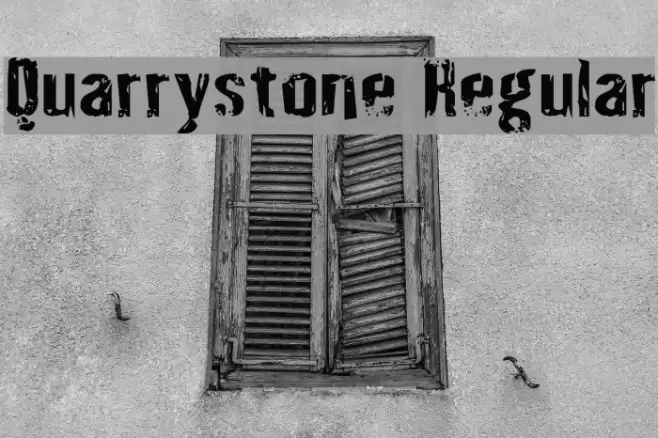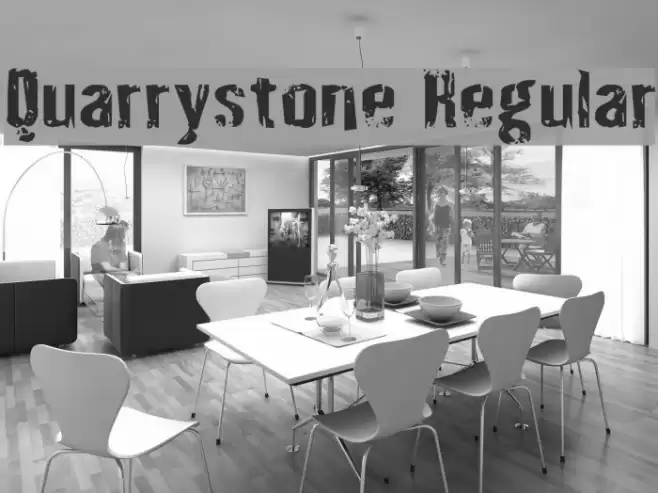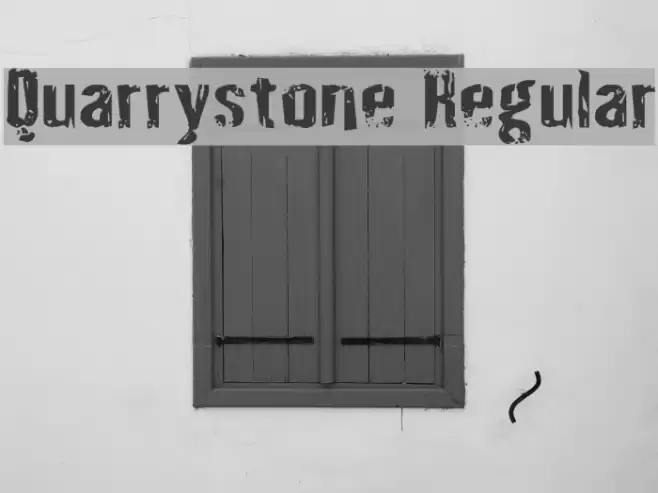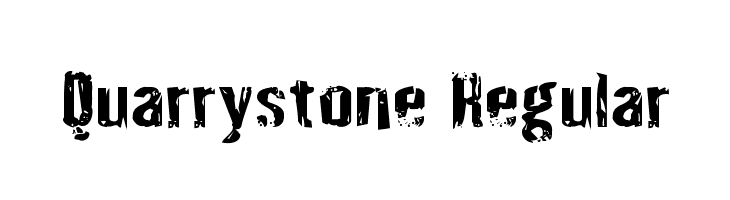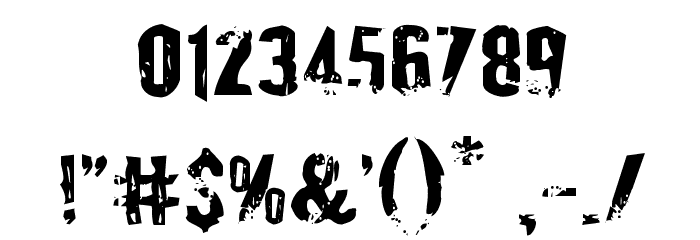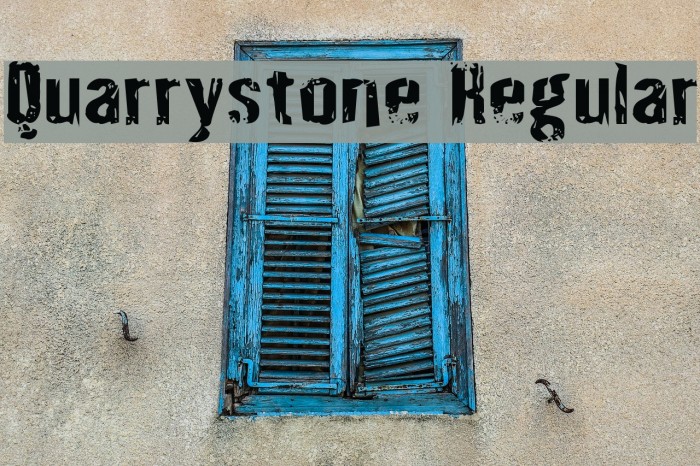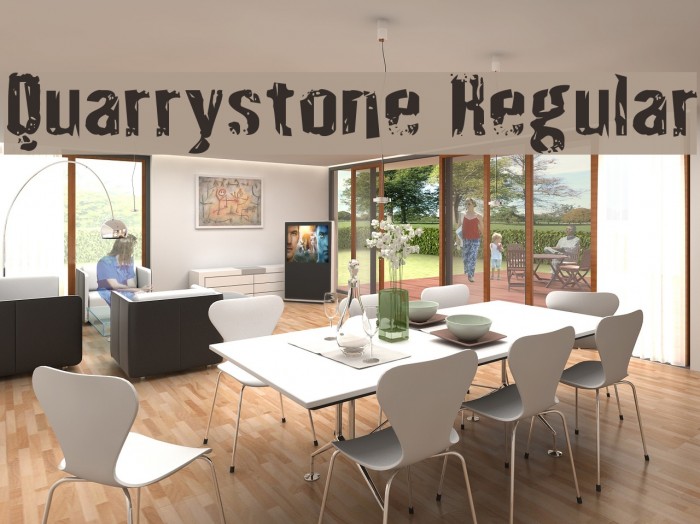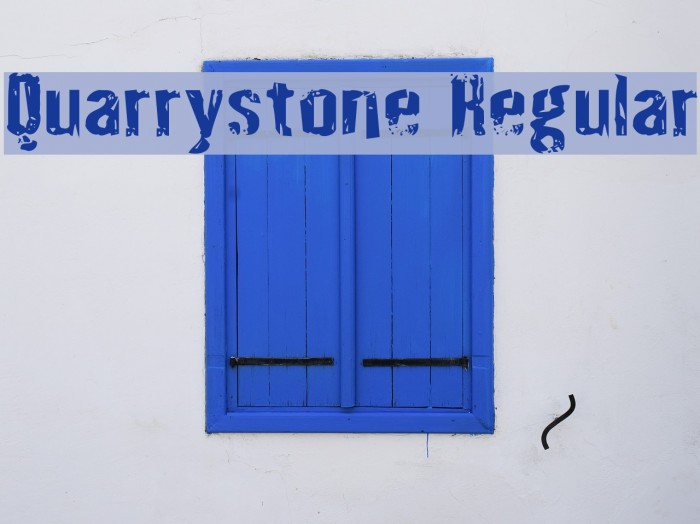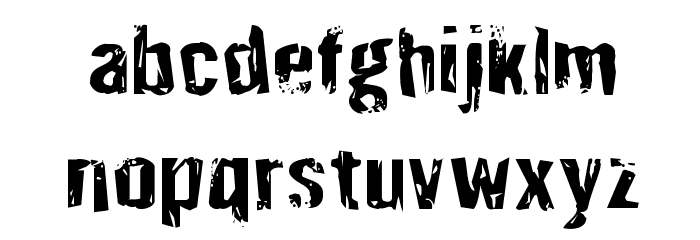
Quarrystone Regular Font
Quarrystone Regular Description
This font features a rugged, distressed appearance, reminiscent of eroded stone or weathered surfaces. The characters are bold and impactful, with uneven edges and a textured look that suggests a sense of age and wear. Each letter has unique imperfections, adding to the overall organic and natural feel. The uppercase and lowercase letters maintain a consistent style, while the numbers and special characters follow the same distressed theme. This font is ideal for projects that require a gritty, raw aesthetic, such as posters, album covers, or branding for outdoor or adventure-themed products.
A rugged, distressed font with a textured, weathered appearance from Fancy fonts.
- Proposed Projects: Ideal for posters, album covers, branding for outdoor or adventure-themed products.